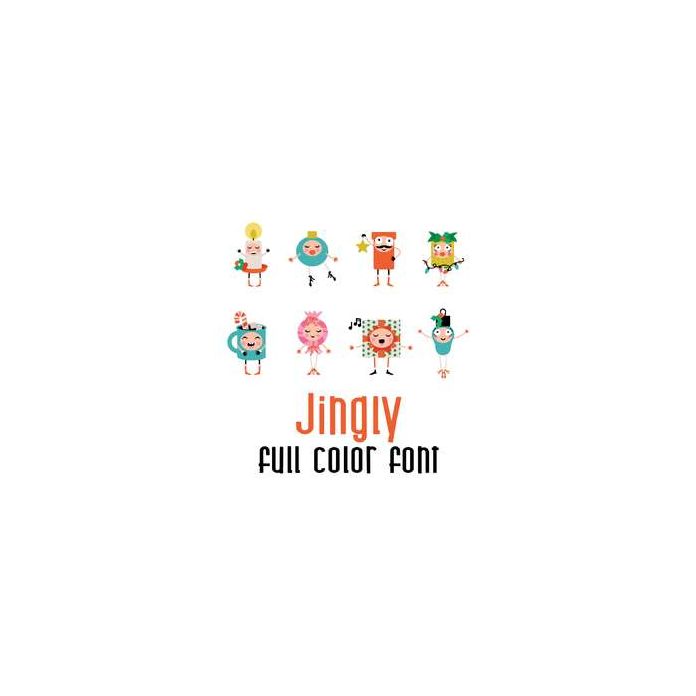
This adorable full color doodlebat font features cute animated Christmas themed icons perfect for the Holidays. Perfect for cards, crafts, gifts, decor, scrap book pages, planner stickers and more!